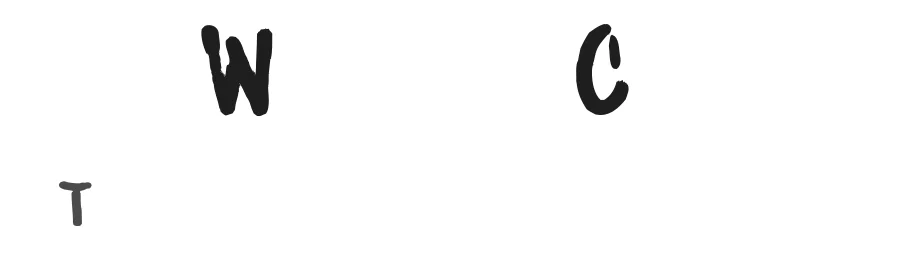
About Not A Drop Font
| Designer | dcoxy Medina Gregory |
Not A Drop Font is a script font that shines as a display or heading face. Pair it with a clean sans-serif or serif font for body text β the contrast creates a clear hierarchy while the two styles stay balanced and easy to read.